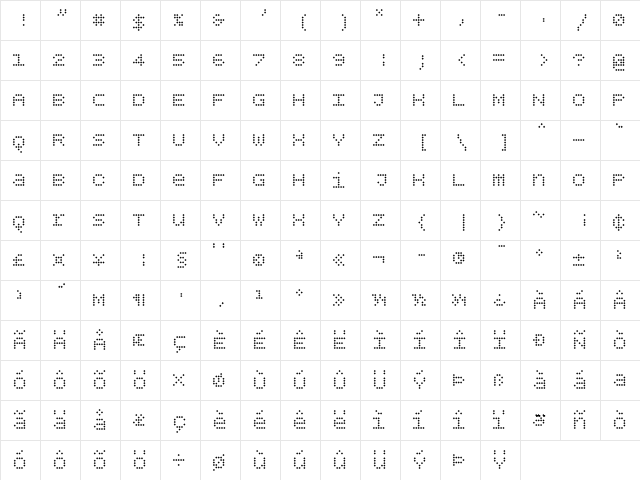
BPdotsUnicaseDiamond Regular
| Foundry | George Triantafyllakos |
| Designer | George Triantafyllakos |
Design Context for BPdotsUnicaseDiamond Typeface
BPdotsUnicaseDiamond celebrates the constraints of early digital type, turning pixel geometry into a distinctive and immediately recognisable style.
A natural choice for retro game titles, chiptune music branding, 8-bit UI, and digital nostalgia projects.